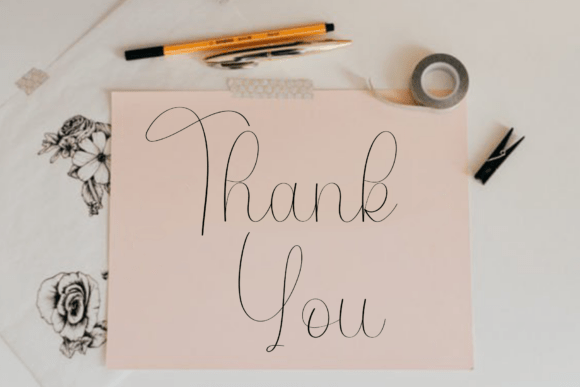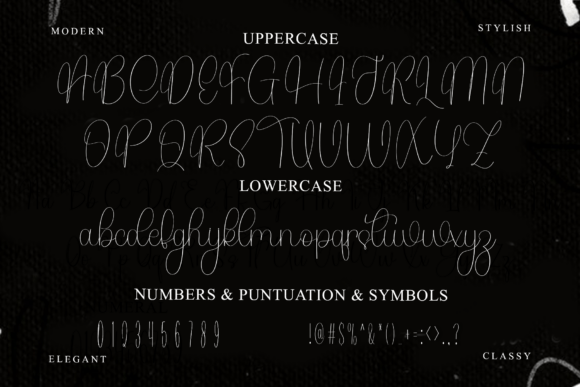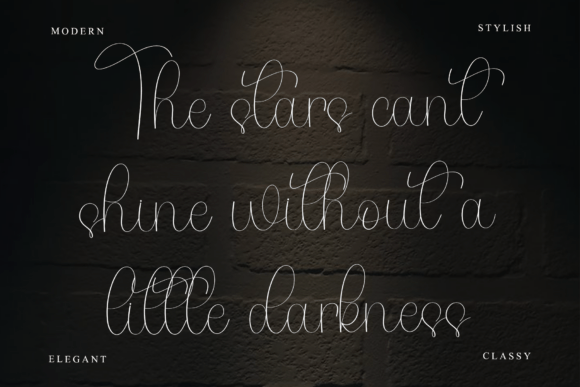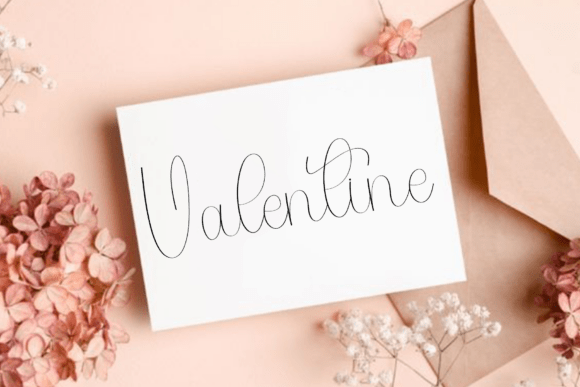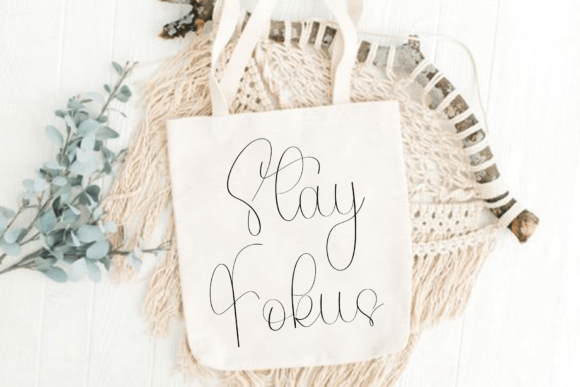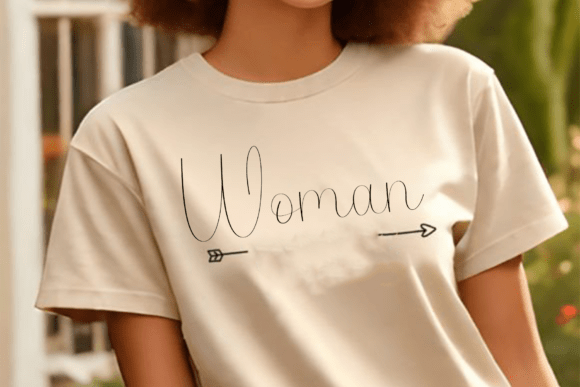
The Magic of Casualty Font: Elevate Your Holiday Designs
Ah, the holiday season is upon us, and as designers, crafters, and creative hobbyists, we’re on the lookout for that perfect font to bring our festive projects to life. I still remember the year I spent hours scouring font libraries for the ideal typeface for a client’s Christmas card campaign. The brief was simple: create something merry, bright, and Instagram-worthy. That’s when I stumbled upon Casualty Font, and it instantly became my go-to for holiday designs.
An Honest Review of Casualty Font
So, what makes Casualty Font so special? Let’s dive into the good stuff and, of course, a few quirks I’ve encountered.
- ✨ Festive and Merry Vibes: Casualty Font embodies the spirit of the holiday season with its decorative elements and whimsical flair.
- 🎉 Versatility: Perfect for greeting cards, gift tags, holiday-themed projects, and more.
While Casualty Font has won my heart, there are a couple of things to keep in mind:
- ⚠️ Glyph Overload: With so many glyphs and ligatures available, it can be a bit overwhelming at first. Take some time to explore and get familiar with the font’s capabilities.
- 🤔 Legibility at Small Sizes: As with many decorative fonts, legibility can be a challenge at very small sizes. Use it for headlines or larger text for maximum impact.
The Backstory of Casualty Font
While the origins of Casualty Font might be shrouded in mystery, it’s clear that the designer aimed to capture the whimsy and joy of holiday celebrations. Imagine a designer, surrounded by holiday decorations, sipping hot cocoa, and brainstorming ways to bottle the magic of the season into a typeface. That’s the vibe Casualty Font gives off – a festive blend of tradition and playfulness.
Q: What makes Casualty Font special for holiday designs?
A: Casualty Font’s festive and merry vibes, along with its decorative elements and whimsical flair, make it perfect for adding a touch of enchantment to holiday projects.
Q: Is Casualty Font easy to use for beginners?
Casualty Font isn’t just a typeface; it’s an experience. It brings the holiday spirit to your designs, making them more engaging and festive. Whether you’re a seasoned designer or a creative hobbyist, Casualty Font can elevate your projects and make them truly special. So, go ahead and let your typography shine with the magic of Casualty Font this holiday season!